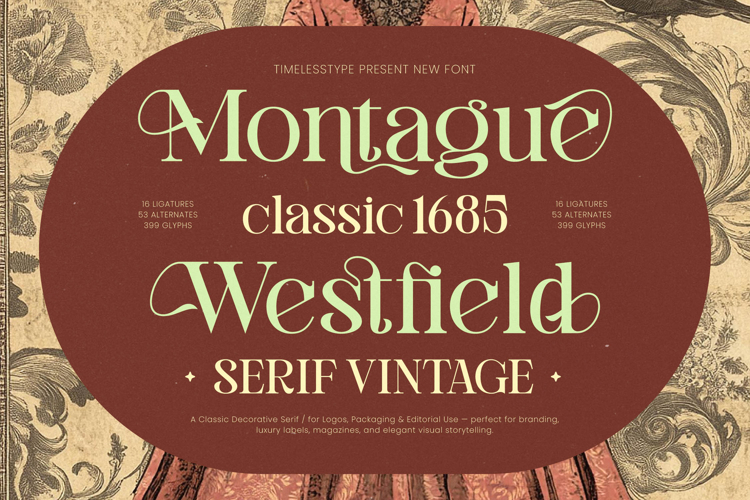
Montague Westfield - Serif Vintage
Montague Westfield - Serif Vintage, a breathtakingly elegant typeface rooted in historical sophistication. This decorative serif masterfully blends traditional high-contrast strokes with contemporary curves, delivering an aesthetic of uncompromised luxury branding. The refined weight distribution and classic serifs ensure unparalleled readability and instant visual impact, making it ideal for projects that demand a timeless quality and a feeling of established heritage.